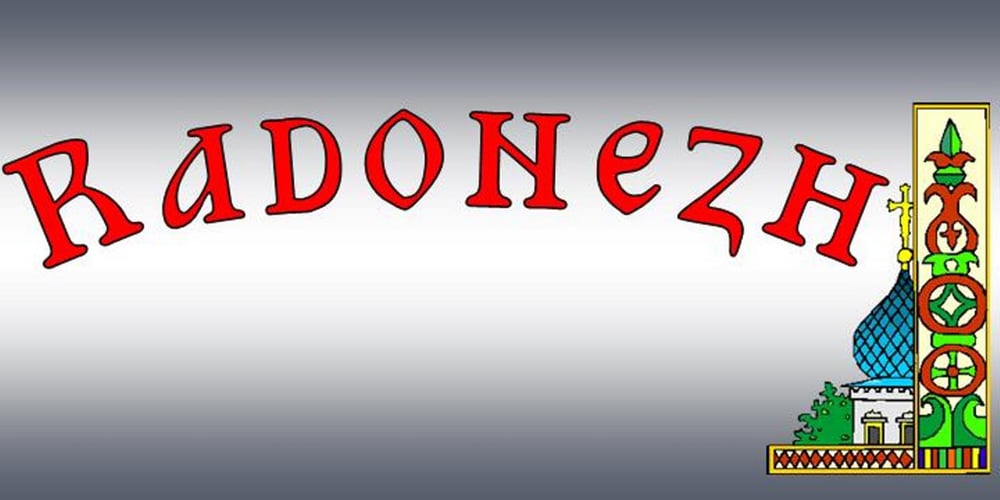
Radonezh Font Family was designed by Brett T. Johnson and published by Simeon out West. Radonezh contains 4 styles and family package options. The Radonezh font is a Latin alphabet layout based on Russian Lettering I have seen. The font is designed to give a classic Medieval Eastern European feel with a hand-lettered style. Radonezh comes with full punctuation, a complete character set for most Western European Latin alphabet languages, Cyrillic languages, and polytonic orthography for Greek. Being a decorative font, it works best at larger point sizes.